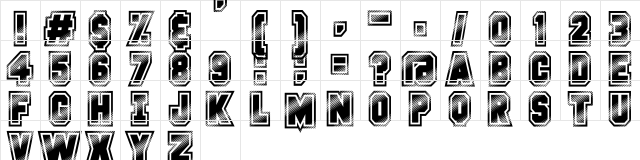
Glitter Campus Regular
| Designer | IMAGEX |
Design Context for Glitter Campus Typeface
Glitter Campus is a composed and adaptable typeface that performs quietly and consistently across a wide range of design contexts.